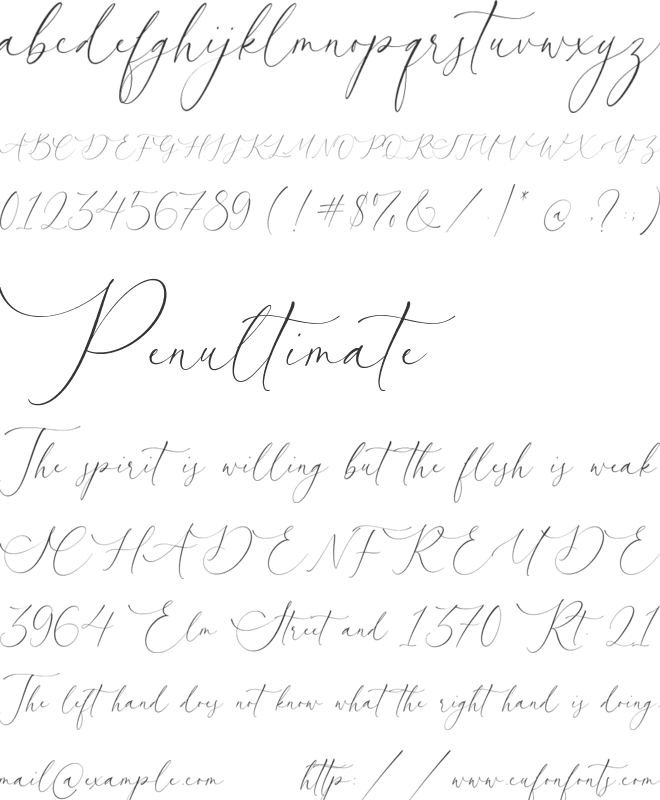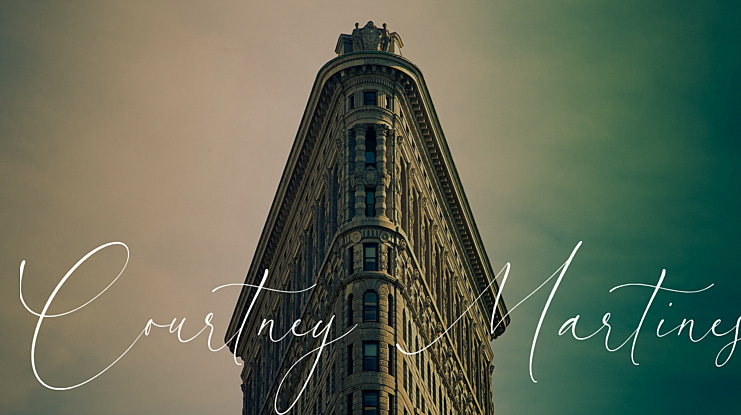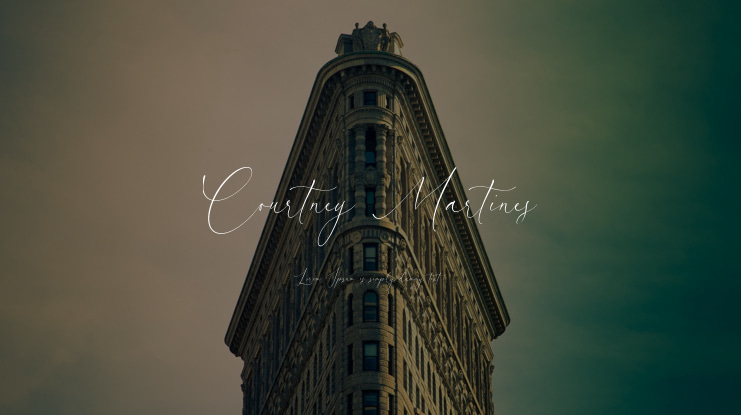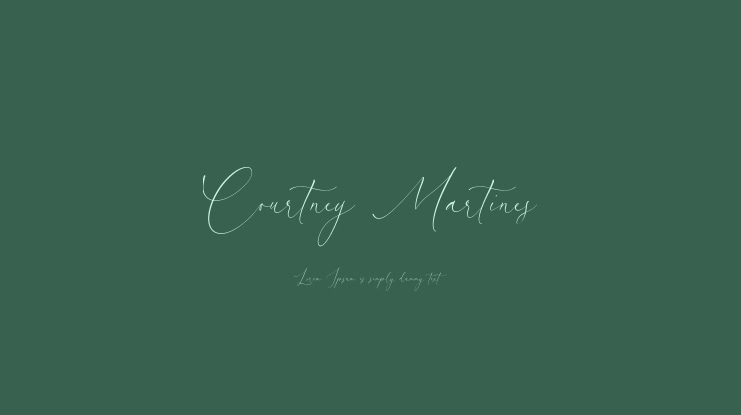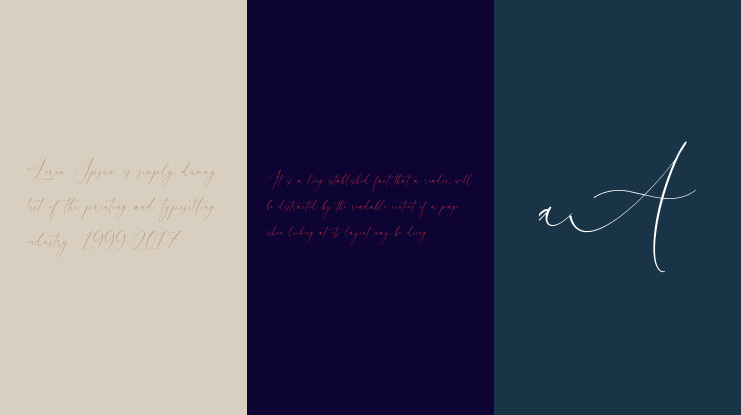
Courtney Martines Font
Introducing Courtney Martines Font, a modern and fresh handwritten script font that will add a warm and inviting touch to your business. Whether you're in need of a font for product packaging, branding projects, magazines, social media, weddings, or simply to enhance your designs, Courtney Martines has got you covered.
This premium font features a full set of standard alphabet and punctuation, ensuring versatility and convenience. In addition, Courtney Martines also offers multilingual support, making it suitable for various languages.